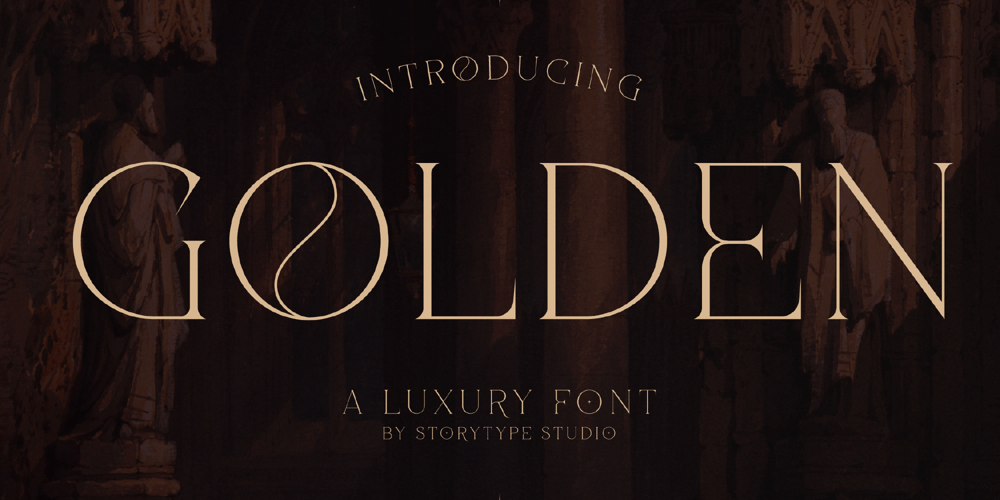
Golden Font Family was designed by Heru Utama Putra and published by Letterena Studios. Golden contains 2 styles and family package options. A serif modern and classic typeface that has its own unique style & modern look.This typeface is perfect for an elegant & luxury logo, book or movie title design, fashion brand, magazine, clothes, lettering, quotes, and so much more.This font is PUA encoded which means you can access all of the amazing glyphs and ligatures with ease!**Uppercase